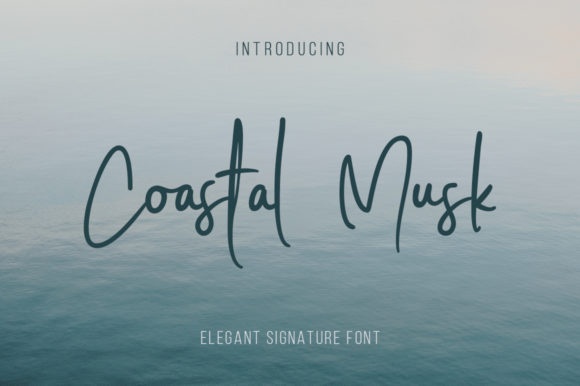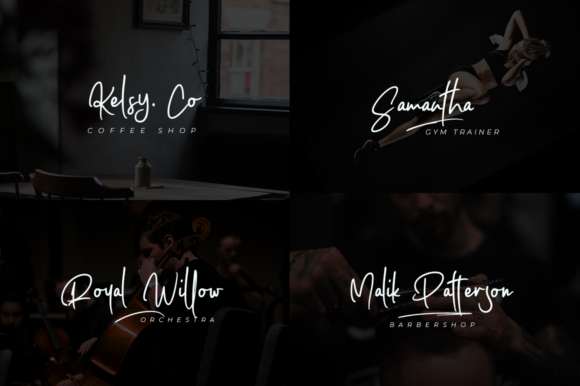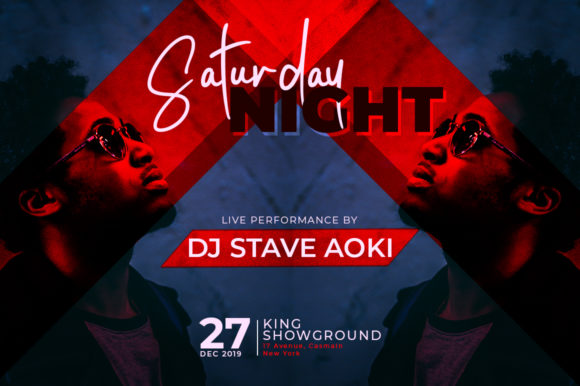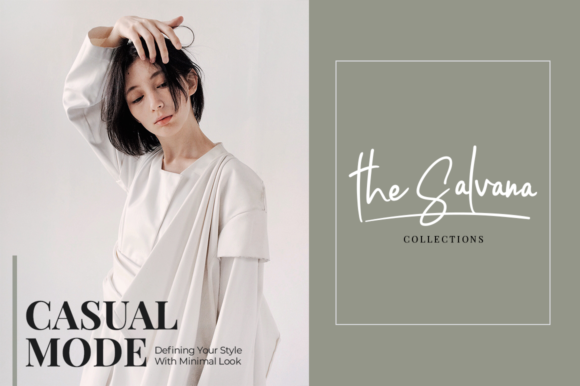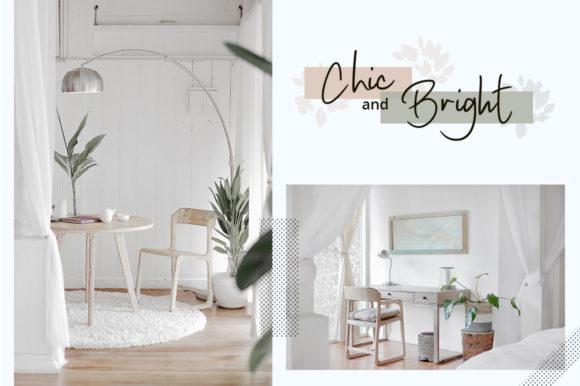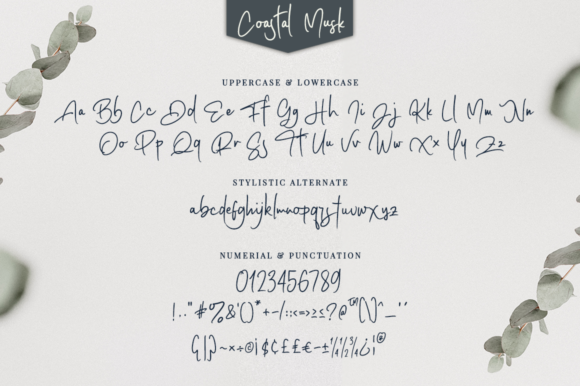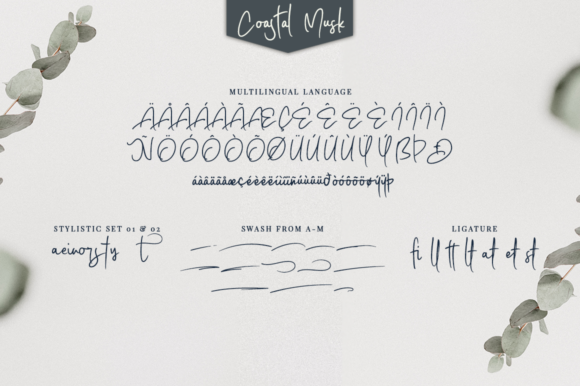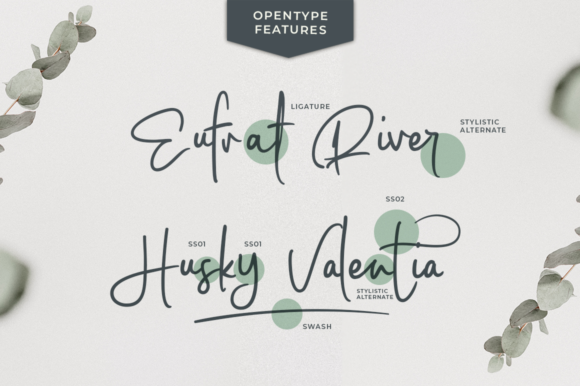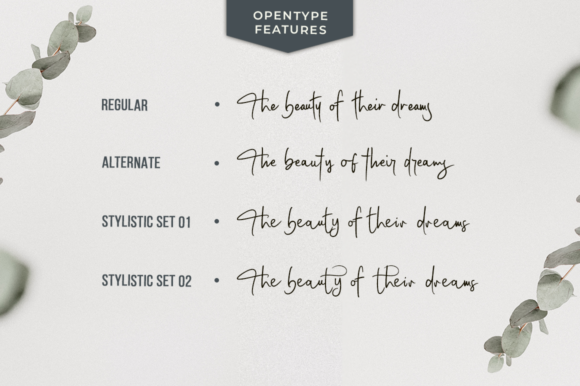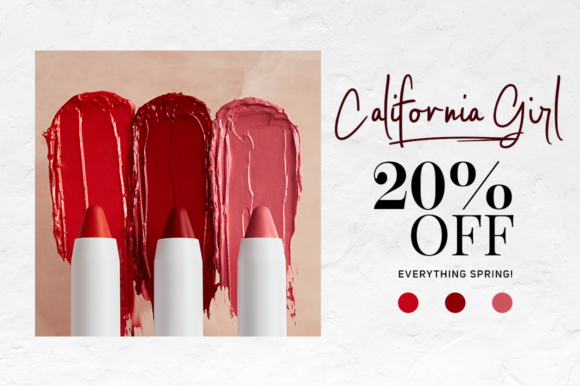
HomeScript FontsCoastal Musk Font Script Fonts Coastal Musk Font FacebookXPinterestWhatsApp Coastal Musk Font Poster 2 Coastal Musk Font Poster 3 Coastal Musk Font Poster 4 Coastal Musk Font Poster 5 Coastal Musk Font Poster 6 Coastal Musk Font Poster 7 Coastal Musk Font Poster 8 Coastal Musk Font Poster 9 Coastal Musk Font Poster 10 Coastal Musk Font Poster 11 About Coastal Musk Font Coastal Musk is a gorgeous script that radiates life and authenticity. DOWNLOAD ON CREATIVE FABRICAThis font is sold and delivered by Creative Fabrica. Font Canyon may earn a commission if you buy through this link. People also explored Lettering Script Font Locamente Font Bestlady Font Smiling Elida Font Kidboy Font Hummer Miller Melon Lemon Font Dj Mix Fu Font College Sport 353 0 TagsCoastal Musk Font Previous articleWildest Grass FontNext articleSafelight Font LEAVE A REPLY Cancel reply Comment: Please enter your comment! Name:* Please enter your name here Email:* You have entered an incorrect email address! Please enter your email address here Website: Save my name, email, and website in this browser for the next time I comment. Personal Use Free Bethania Personal Use Free Read more about this font Kumadinya Personal Use Free Read more about this font Playground Clip Art Personal Use Free Read more about this font Kanza Personal Use Free Read more about this font BLOG Top 7 Google Fonts Alternatives for Faster and Privacy-Friendly Web Design (2025) Top 7 Google Fonts Alternatives for Faster and Privacy-Friendly Web Design (2025) When it comes to web typography, Google Fonts has long been the go-to... Best Fonts for T-Shirt Design – Top 2025 Picks Where to Buy American Fonts Online in 2024 Elegant Wedding Invitation Fonts – Handwritten & Script Fonts